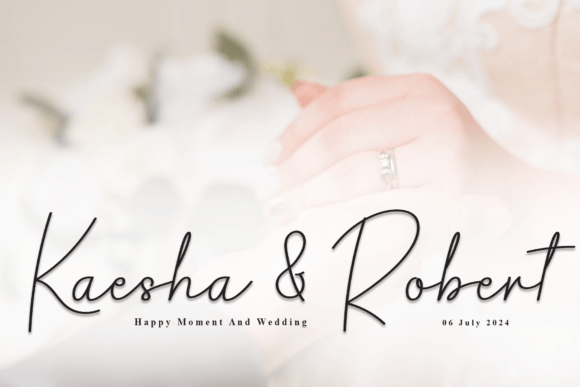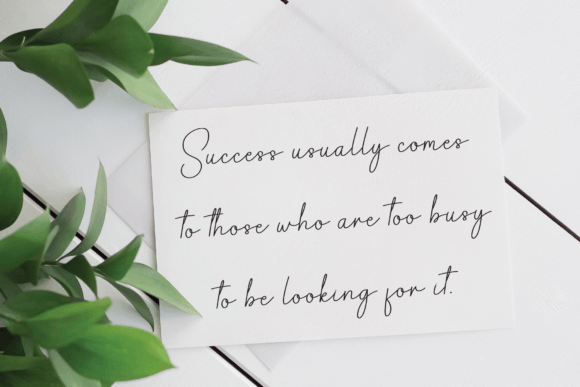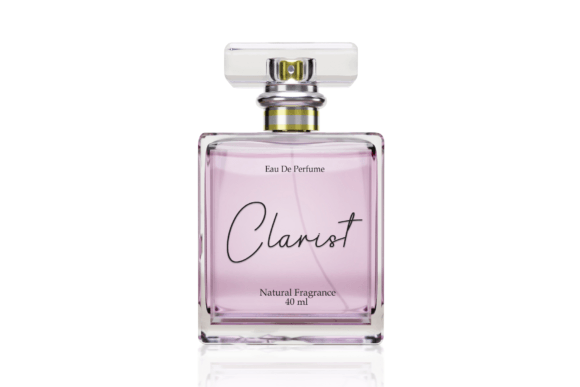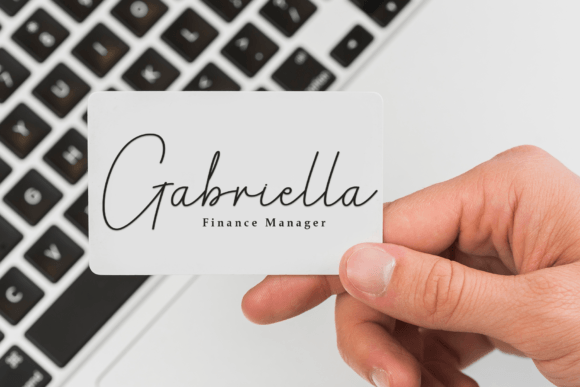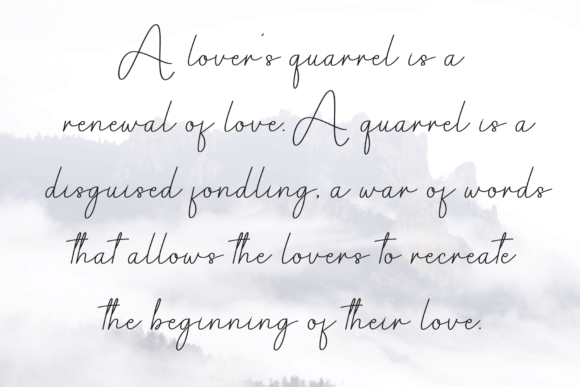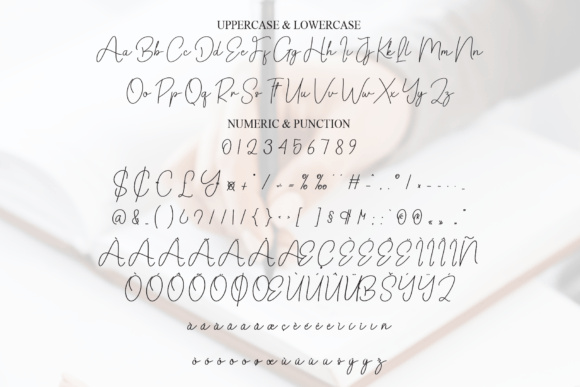
Introducing Angelica Signature Font: Elevate Your Designs with Elegant Handwritten Cursive
Are you a designer or crafter looking for a font that adds a touch of sophistication and personality to your projects? Look no further than Angelica Signature Font, a stunning and elegant font that mimics beautiful, handwritten cursive. This versatile font is perfect for a wide range of applications, from formal invitations and greeting cards to creative projects and digital designs.
The Beauty of Handwritten Cursive
Angelica Signature Font is designed to replicate the fluid, connected strokes of handwritten cursive, giving your text a warm, personal feel. The font’s elegant lines and curves evoke a sense of luxury and refinement, making it ideal for designs that require a high level of sophistication. Whether you’re creating wedding invitations, birthday cards, or social media graphics, Angelica Signature Font is sure to impress.
Key Features of Angelica Signature Font
- Stylish and Elegant: Angelica Signature Font boasts a stylish and elegant design that adds a touch of refinement to any project.
- Handwritten Cursive: The font’s handwritten cursive style gives your text a warm, personal feel that’s perfect for designs that require a human touch.
- Versatile: Angelica Signature Font can be used for a wide range of applications, from formal invitations and greeting cards to creative projects and digital designs.
- Easy to Read: Despite its elegant design, Angelica Signature Font is easy to read, making it perfect for body text and headings.
Uses for Angelica Signature Font
Angelica Signature Font is a versatile font that can be used for a wide range of projects, including:
- Invitations: Create beautiful wedding invitations, birthday invitations, and other formal events with Angelica Signature Font.
- Greeting Cards: Add a personal touch to your greeting cards, including birthday cards, thank-you cards, and holiday cards.
- Digital Designs: Use Angelica Signature Font to create stunning digital designs, including social media graphics, blog headers, and website titles.
- Creative Projects: Add a touch of elegance to your creative projects, including scrapbooking, crafting, and DIY projects.
Tips for Using Angelica Signature Font
To get the most out of Angelica Signature Font, here are a few tips to keep in mind:
- Use it sparingly: While Angelica Signature Font is beautiful, it can be overwhelming if used excessively. Use it sparingly to add emphasis and create visual interest.
- Pair it with a sans-serif font: Pairing Angelica Signature Font with a sans-serif font can create a beautiful contrast that adds visual interest to your design.
- Experiment with colors: Angelica Signature Font looks stunning in a range of colors, from classic black and white to bold and bright hues.